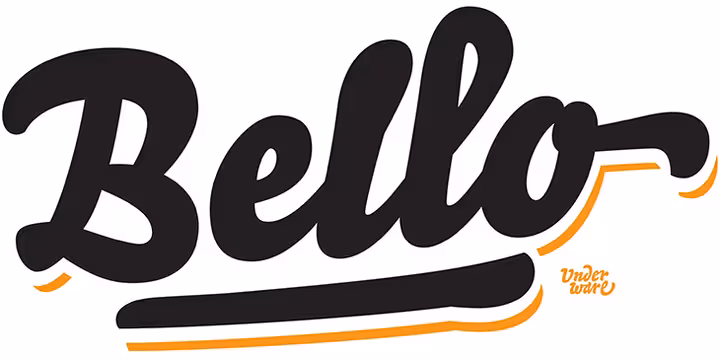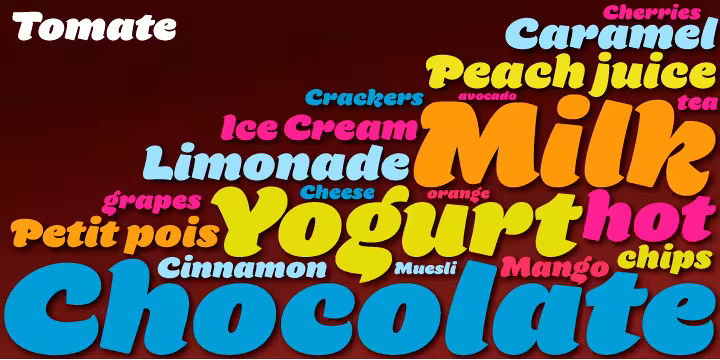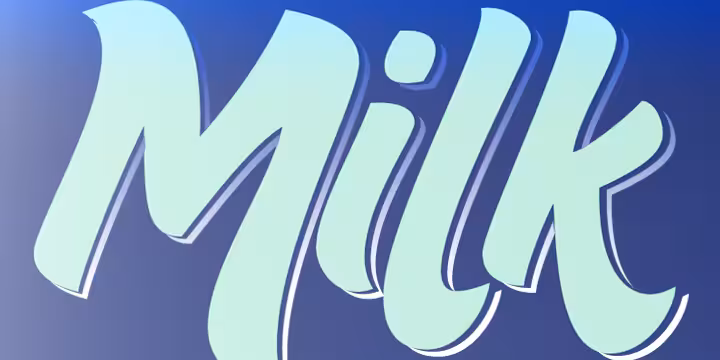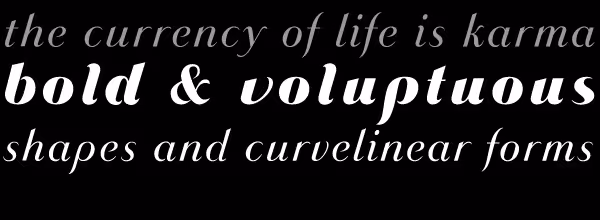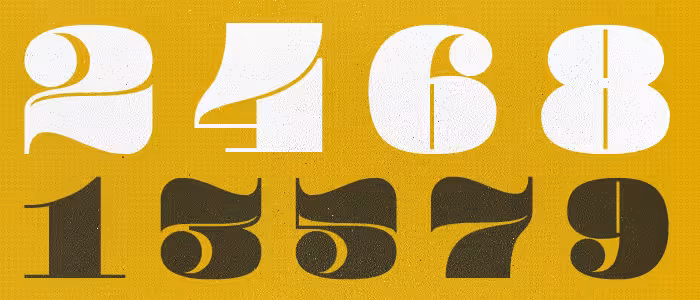
11 sexy script typefaces with voluptuous curves
The art of type design is for a special breed of designer. The insane attention to detail required to create typefaces is enough to drive the average person crazy, as every subtle curve and rule matters. One tiny mistake is the difference between a masterpiece and junk.
One genre of display typeface is the thick script and/or brush style, which when done right, can look down right sexy.
Here’s a list of 11 curvy, thick typeface that are just-right. Some are completely free, and others aren’t, but they’re all definitely worth a pretty penny if you have it on you.
FF Pitu
“This typeface is rich, voluptuous and mondo bodacious; but it’s also clever, educated and exceedingly gracious. If Kim Kardashian had class, she would be FF Pitu (via Typographica).”
Pompadour
Pompadour is a chunky, display numeral set inspired by the 1950s Rockabilly Hairdo. The numbers, which each fit perfectly inside of a square, are best used at large sizes.
Sugar Pie
Sugar Pie is a straight forward packaging typeface. Its many ligatures and alternates are just as visually effective as Candy Script‘s, but in a subtler and less pronounced fashion.
Karmaform
Karmaform is a robust type design, inspired from a mix of heavy serifs, curvilinear, and voluptuous shapes. Don’t let the sample fool you, this is a crisp and quality typeface. Visit the link, and then scroll down to the bottom (all the way) for the correct download.
Bello
Bello is a brush typeface for headline point sizes – it’s big & beautiful. Bello has lots of ligatures and start and ending swashes.
Bready
Bready is a slick, thick brush stroke-styled font that’s over the top, yet completely legible. It can’t help but overshadow most designs with its retro attitude.
Tomate
Tomate started in 2006 as a brush lettering exercise for a poster and was later used for the ReType identity. In 2008 its author decided to turn it into a super fat typeface suitable for packaging and mass consumption products.
Lobster (free)
While too rigid to be truly voluptuous, Lobster is a slightly overused and quite impressive script display typeface. Try it somewhere atypical and you may be surprised.
Freehand 521
Freehand 521, which was strangely uploaded by two different “foundries,” is a very fluid face with a medium weight and a consistant, almost predictable style.
Creampuff
This typeface showcases smooth ligatures (love the “ar”), and is about what you’d expect from a free font named “Creampuff.”
Studio Lettering
House Industries is my favorite type foundry in existence. The work that the team over there produces consistently blows my mind and is well worth the price.
Studio Lettering revives the spirit of a bygone trade by gracefully combining classic techniques with 21st-century technology.
These typefaces only show off one style of display type, and are best suited for special occasions. In other words, not every project can…ahem…handle this much personality. But if you do need something fiery and full of flavor, now you know where to look!